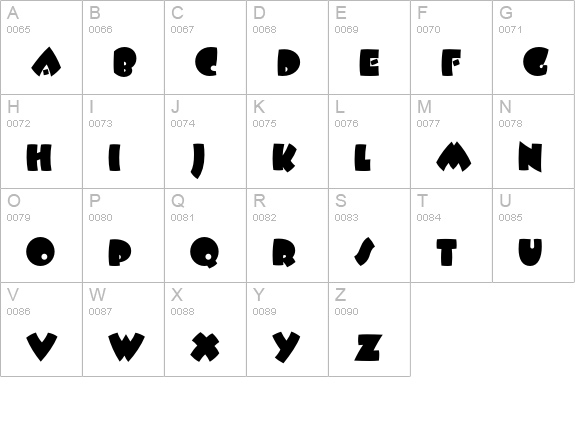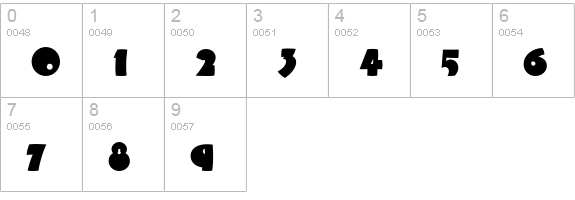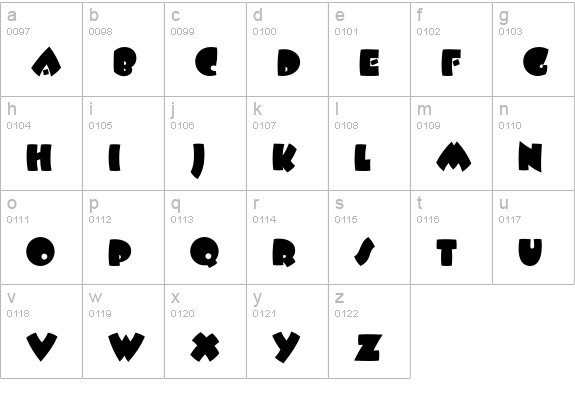
BeeskneesICG Font Details
BeeskneesICG font is a charming and playful typeface that exudes warmth and creativity. Its whimsical yet elegant design makes it perfect for a variety of projects, from branding to invitations to social media graphics. The rounded edges and unique letterforms give BeeskneesICG a distinctive look that is sure to make your text stand out. What's even better is that BeeskneesICG font is available for free download at FontsMarket.com. This means you can easily add this delightful font to your collection without any cost. Whether you're a designer looking to add a touch of fun to your projects or someone who simply appreciates beautiful typography, BeeskneesICG font is a must-have addition to your font library. Download it today and let your creativity soar with this delightful and free font.